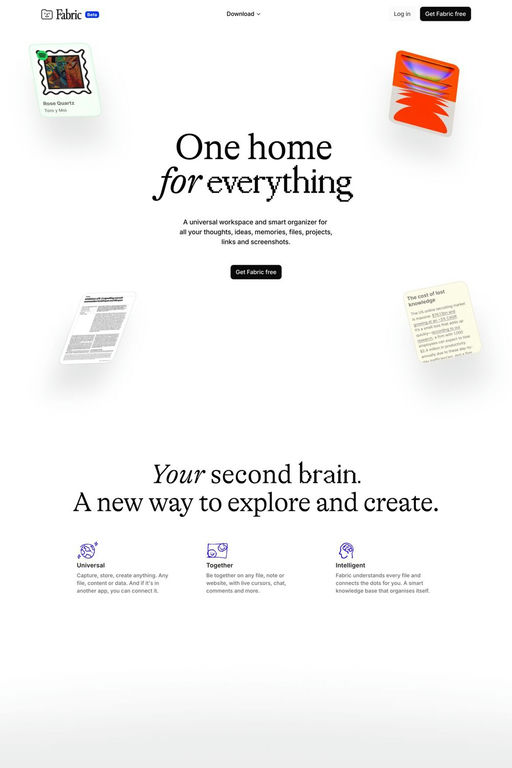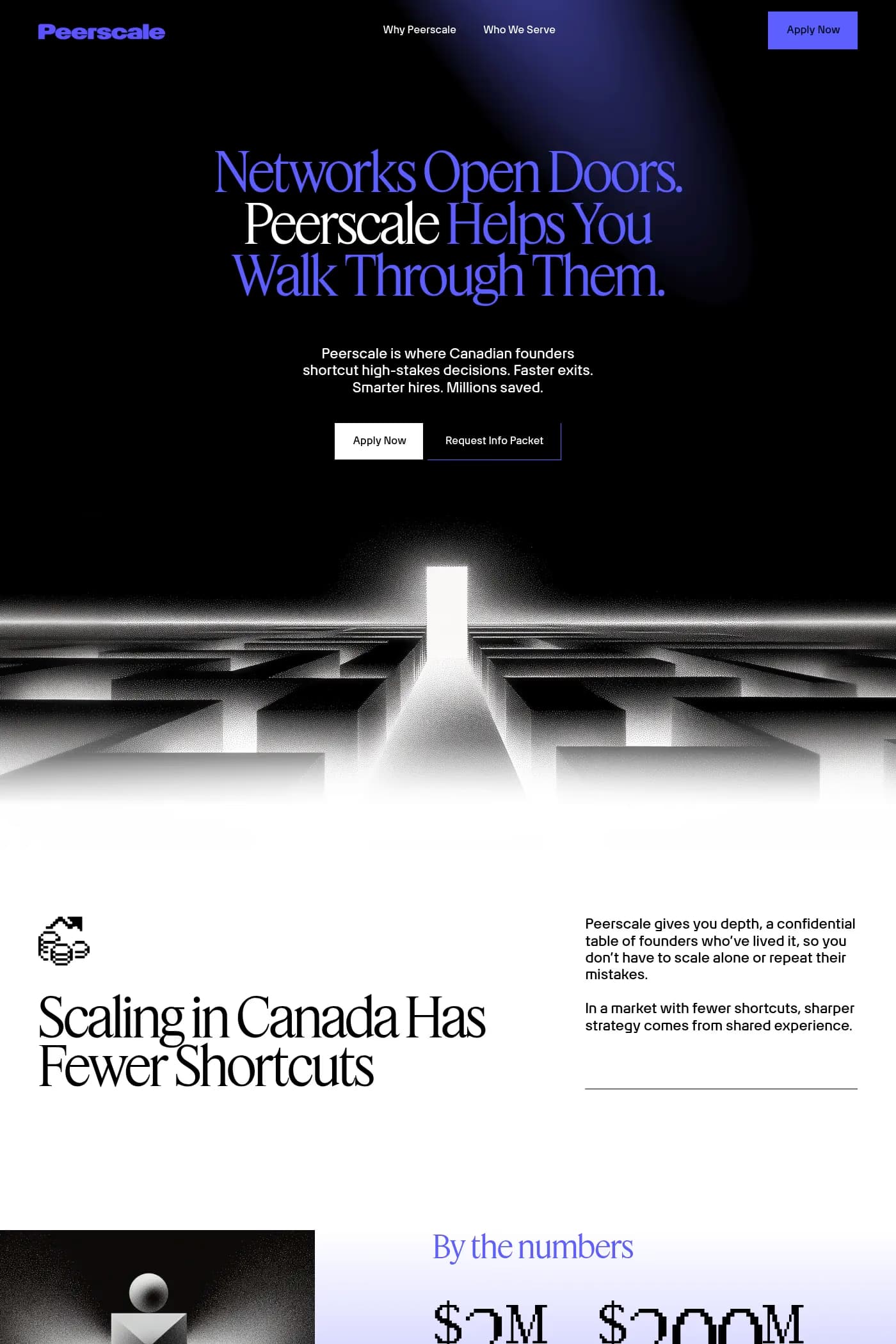
Mondwest is a display typeface from Pangram.
Designed to be your next go to pixel font, these bitmap fonts were inspired by the classic Grotesks and Serifs of our era ● With more than 600 characters, symbols and icons these were crafted for maximum legibility, versatility and pairing capacity. The digitalization was pushed further reimagining these timeless classics to a more futuristic/brutalist yet precise aesthetic ▲ The meticulously crafted bitmap typeface pack will definitely uplift your next designs.